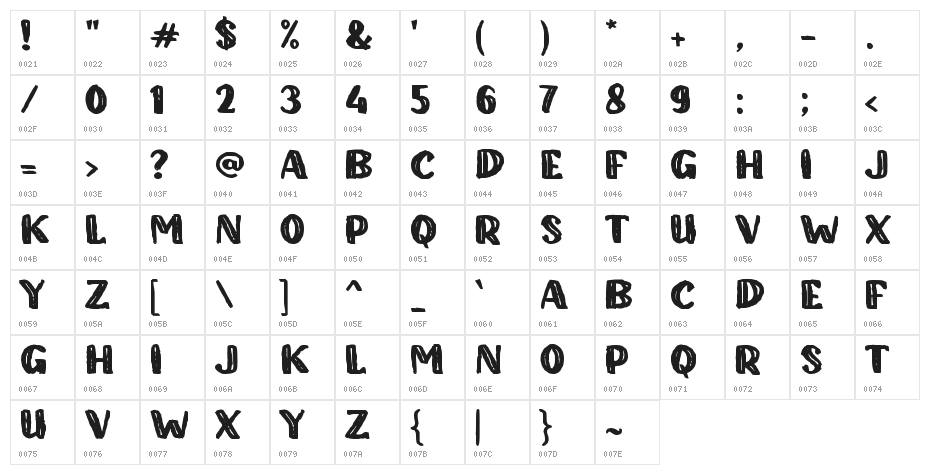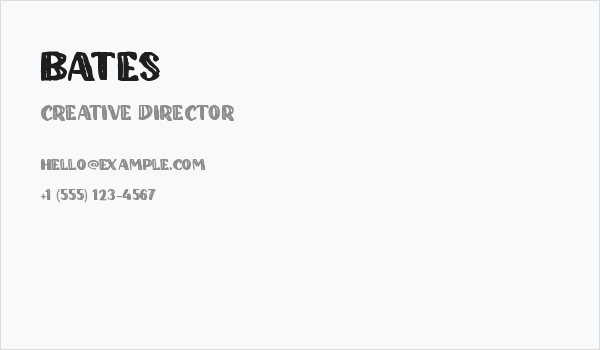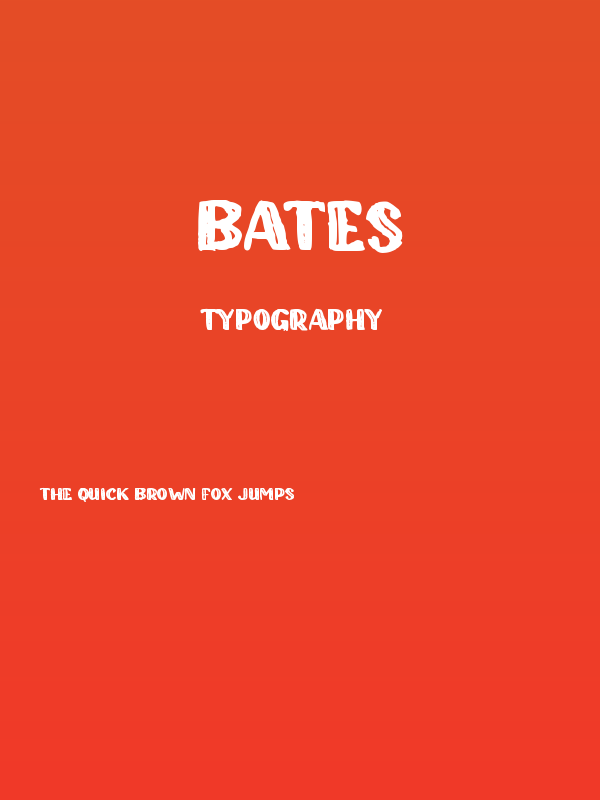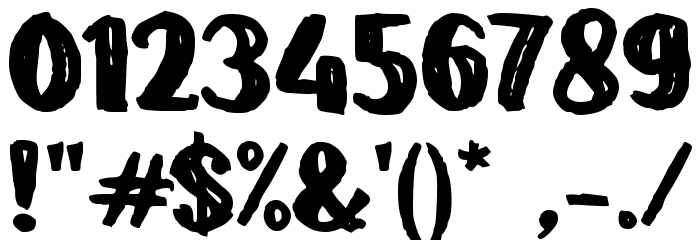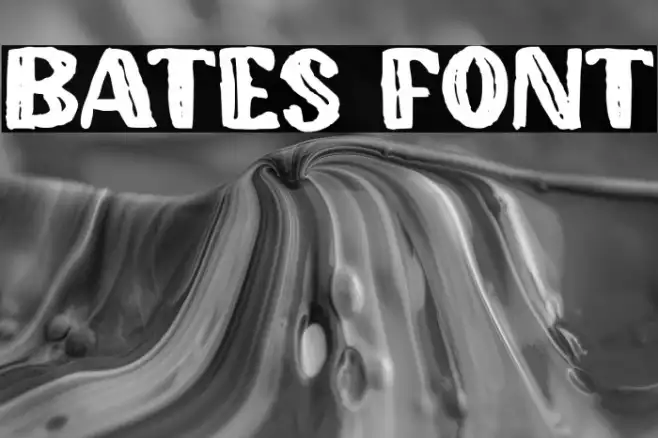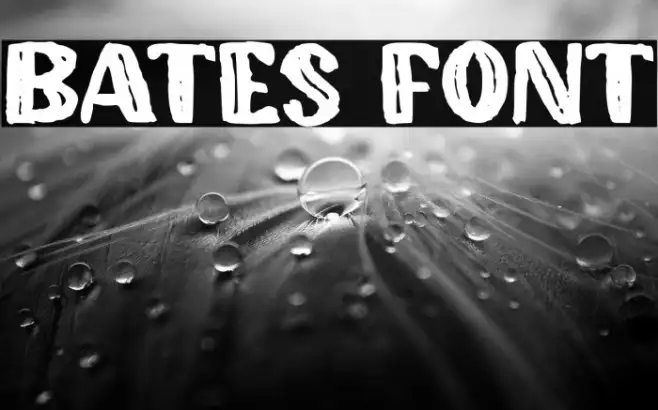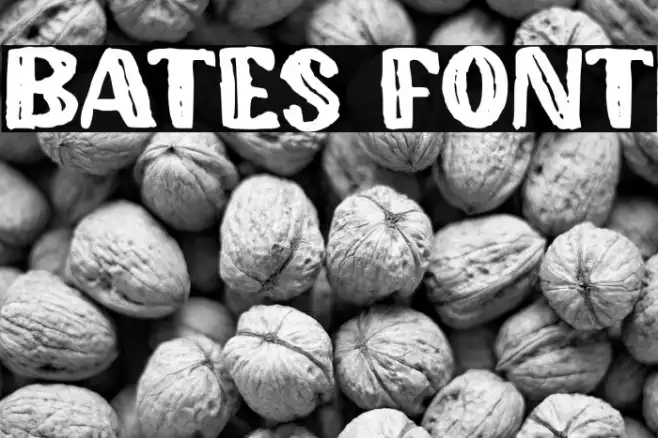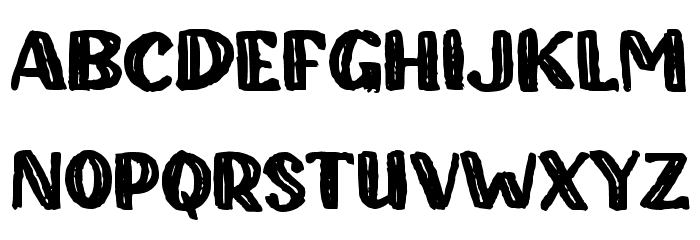
Bates Font
Bates Description
This font exhibits a bold and expressive style with a hand-drawn appearance. The characters are thick and slightly irregular, giving them a dynamic and energetic feel. The uppercase and lowercase letters maintain a consistent weight, contributing to a cohesive look. The numbers and special characters follow the same bold and playful design, making them stand out. This font's distinctive style is perfect for projects that require a strong visual impact and a touch of creativity.
BATES UPPERCASE
BATES LOWERCASE
BATES OTHER CHARS